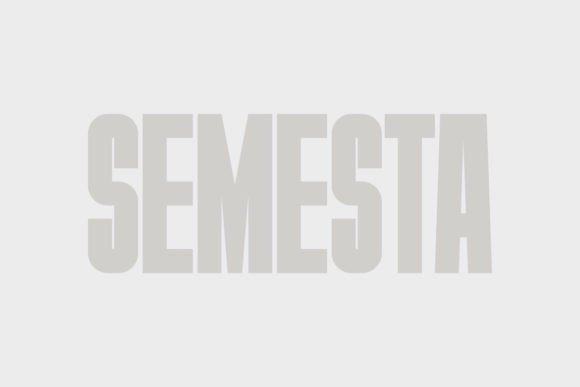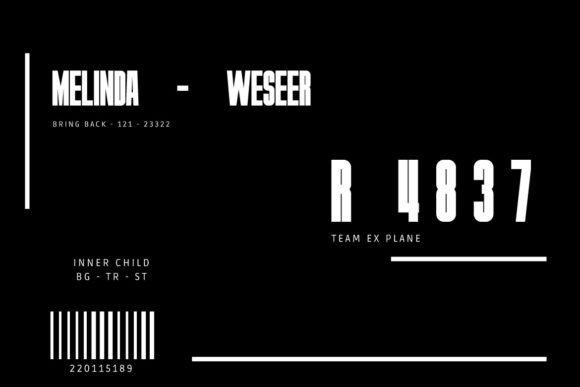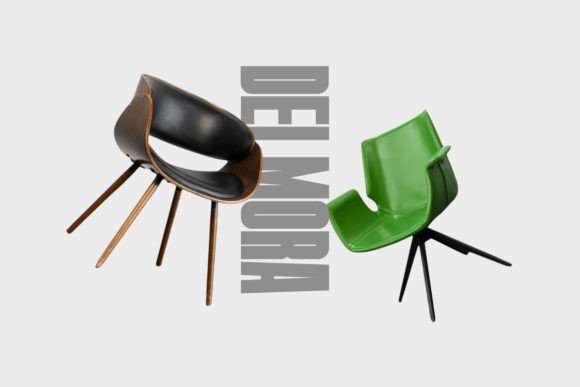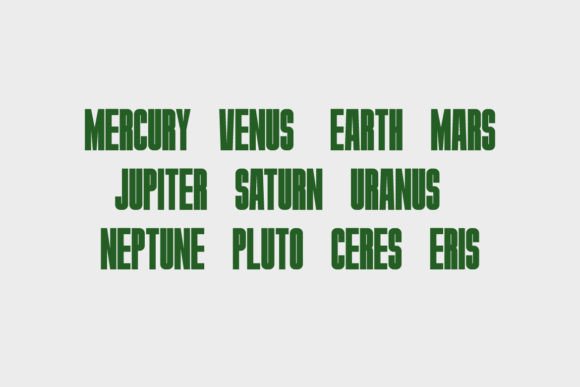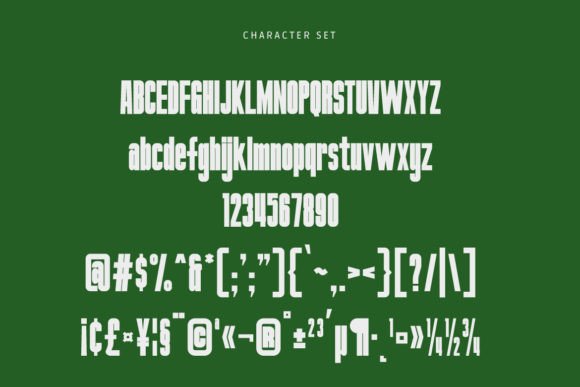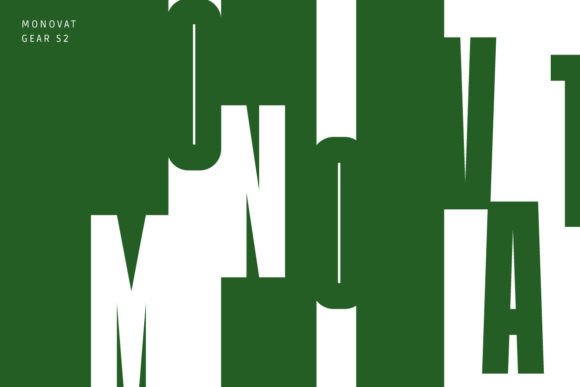
The Grand Entrance: Discovering the Power of Grand Mighty Font
I’ll never forget the time I was working on a logo design project for a trendy new coffee shop. My client wanted a modern, sleek look that would appeal to the young and hip. As I scrolled through my font library, I stumbled upon Grand Mighty – a sans serif font that caught my eye with its clean and condensed design. It was love at first sight! ✨
In this article, I’ll share my experience with Grand Mighty, its features, and how to make the most of it in your designs. Whether you’re a designer, crafter, or creative hobbyist, you’ll learn why Grand Mighty is an excellent addition to your font collection.
• ✨ Clean and modern design: Grand Mighty seamlessly blends simplicity and sophistication, making it perfect for modern projects.
• ✅ Condensed design: Its compact style creates a powerful and efficient visual impression, ideal for headlines and titles.
• 💡 Versatile: Suitable for various design applications, including logo design, promotional materials, and eye-catching headlines.
While Grand Mighty is an excellent font, there are a few things to keep in mind:
• 🤔 Limited italic styles: Grand Mighty has limited italic options, which might not be ideal for body text or long-form content.
• ⚠️ Glyph compatibility: Some glyphs might not work seamlessly with certain software or platforms, so be sure to test compatibility before finalizing your design.
The Designer Inspiration Behind Grand Mighty
Grand Mighty was designed with the modern designer in mind. Its creator aimed to craft a font that would be both clean and powerful, with a focus on versatility and legibility. The result is a font that works seamlessly in a variety of design applications, from logos and headlines to promotional materials and more.
Q: What makes Grand Mighty suitable for modern projects?
A: Grand Mighty’s clean and condensed design, combined with its simplicity and sophistication, make it an ideal choice for modern projects.
Q: Can I use Grand Mighty for body text?
A: While Grand Mighty is primarily designed for headlines and titles, it can be used for body text in certain contexts. However, its condensed style might make it less suitable for long-form content.
Q: Is Grand Mighty compatible with non-Latin scripts?
A: Grand Mighty is designed with Latin characters in mind. Compatibility with non-Latin scripts may vary, so be sure to test the font with your specific language requirements.